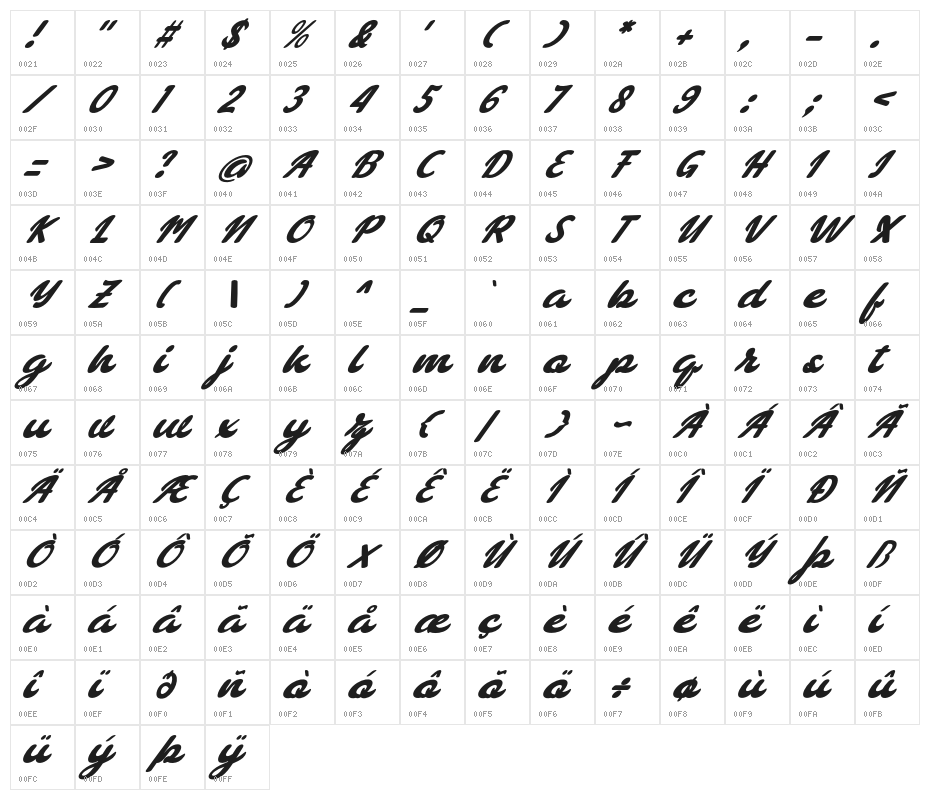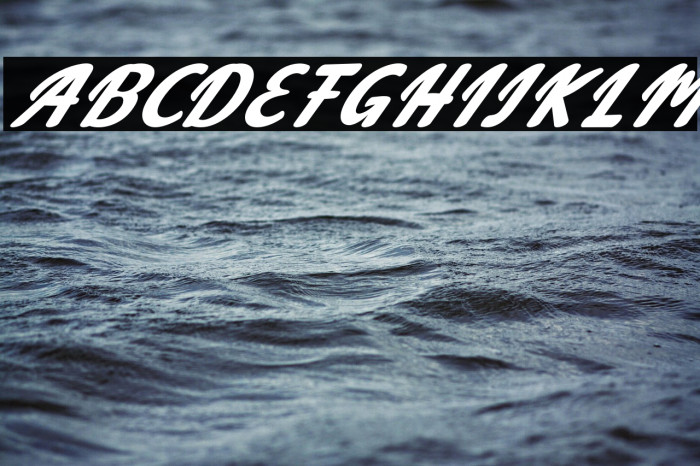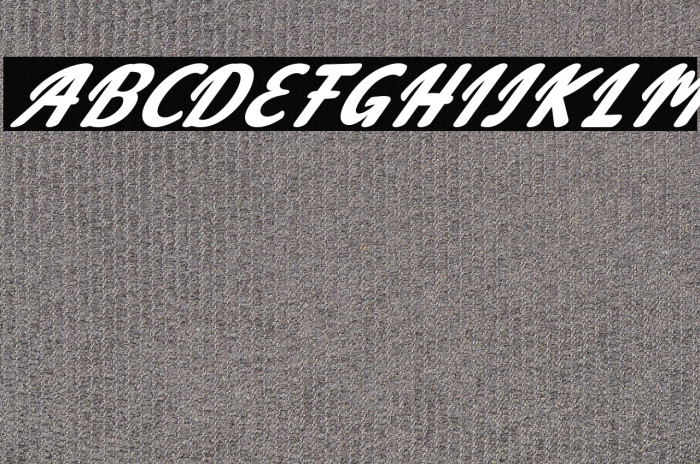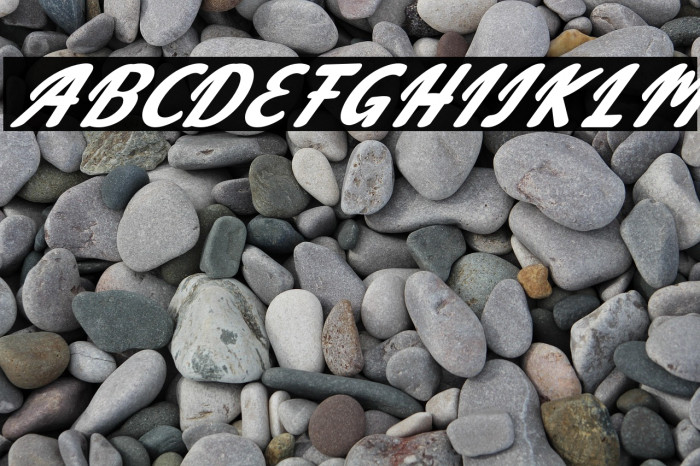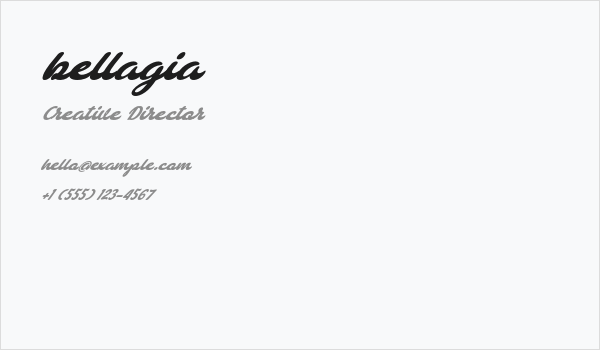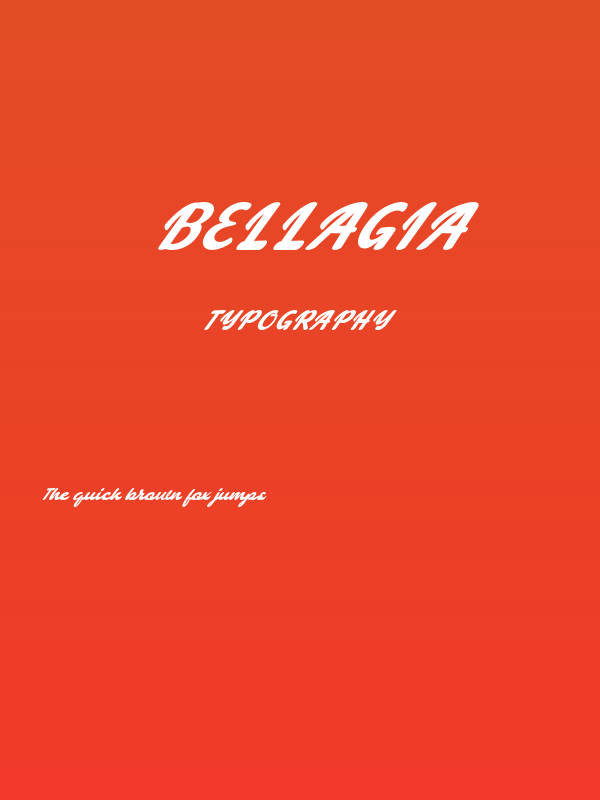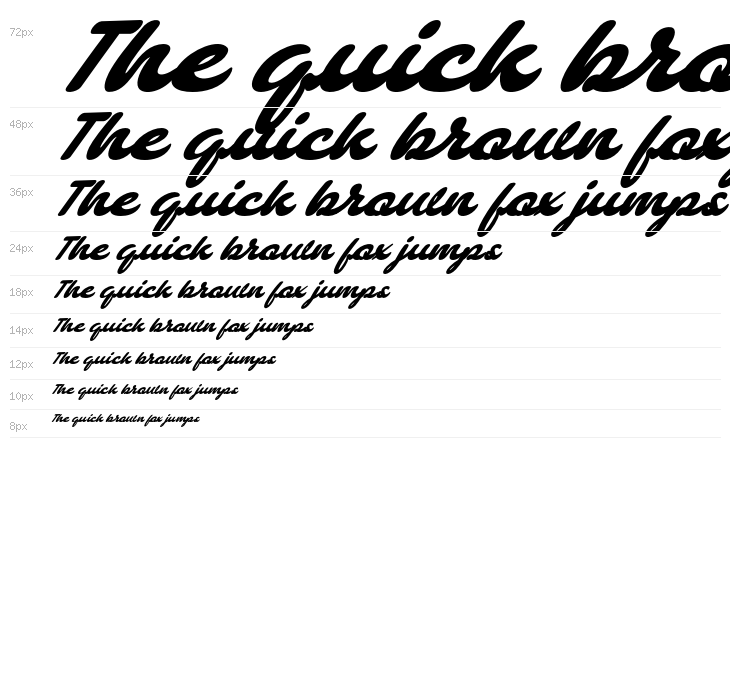
bellagia Font
bellagia Description
This font features a bold, cursive style with a strong emphasis on fluidity and elegance. The characters are connected, creating a seamless flow that mimics natural handwriting. The uppercase letters are slightly larger and more pronounced, while the lowercase letters maintain a consistent size and shape. Numbers and special characters are designed to match the overall cursive theme, ensuring a cohesive look across all text. The font's thick strokes and smooth curves make it highly legible, even at smaller sizes. Its dynamic and expressive nature lends itself well to creative and artistic projects.
| Proposed Projects | Ideal for wedding invitations, greeting cards, logos, and branding materials that require a personal touch. |